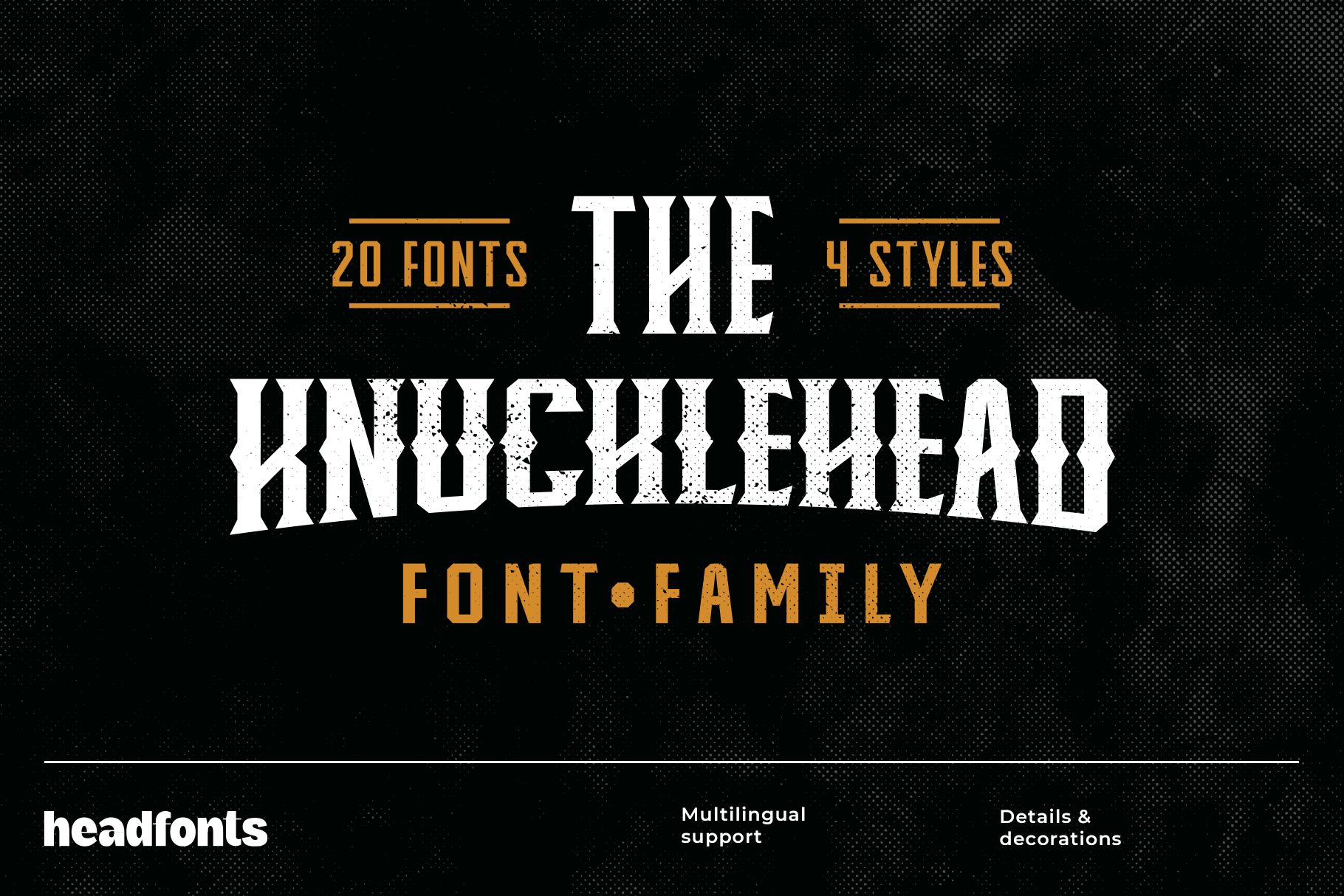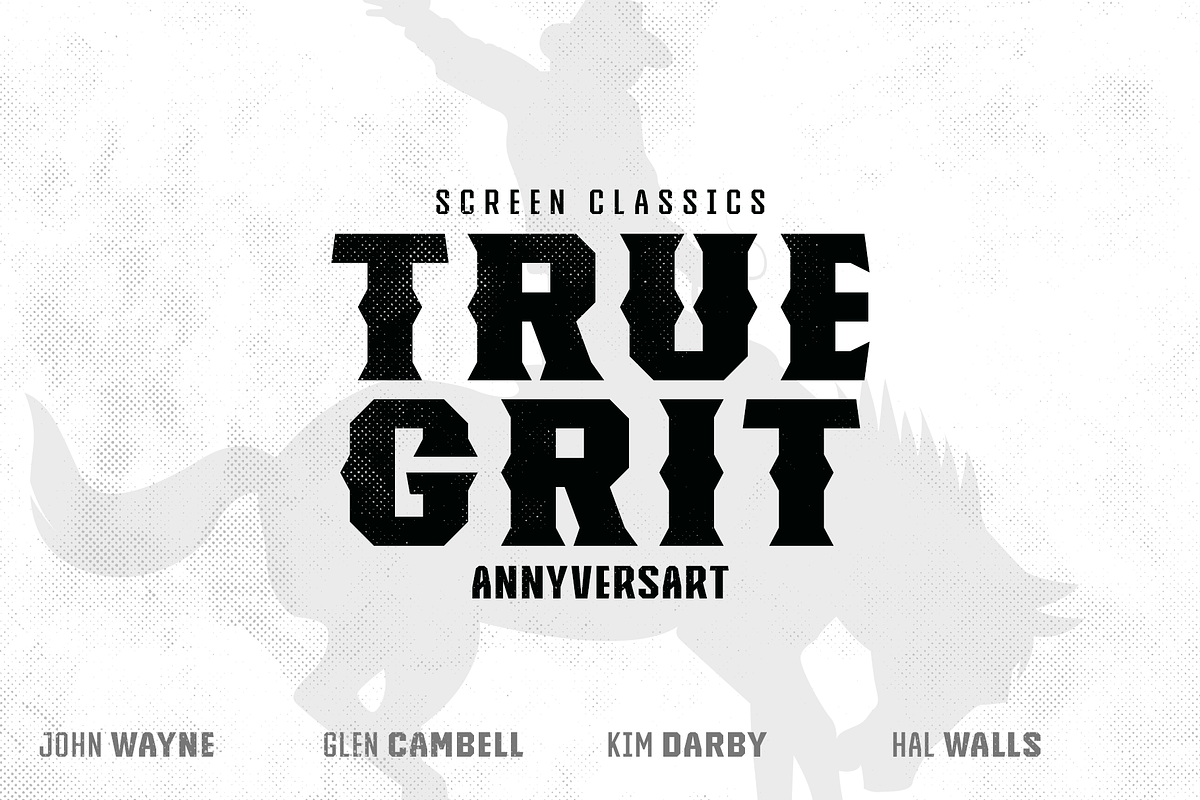
Knucklehead Font Family
Knucklehead Font
Stand out in the crowd and spread your message across with a creative font family! The source of inspiration for this special font family was the American western culture. We wanted to create a font that offers the opportunity to communicate in an unique manner by wrapping up the messages in this one of a kind font family. Traditional, yet modern, the Knucklehead font family has that vintage touch that really can draw attention. It is suited for out of the box, modern communication, packaged with a vintage touch that can really make the difference.
The Knucklehead font family can become an important asset in various projects that can benefit from that vintage western touch. It is suited for design professionals who are looking for a change in their vision, who want to experiment and discover new alternatives to make their designs stand out and create that strong impression for the audience. From logo designs, to posters, or wedding invitations, this font family can bring that special vibe, that only small details treated right can.
Knucklehead Sans
Knucklehead Serif
Knucklehead Deco
Knucklehead Slab